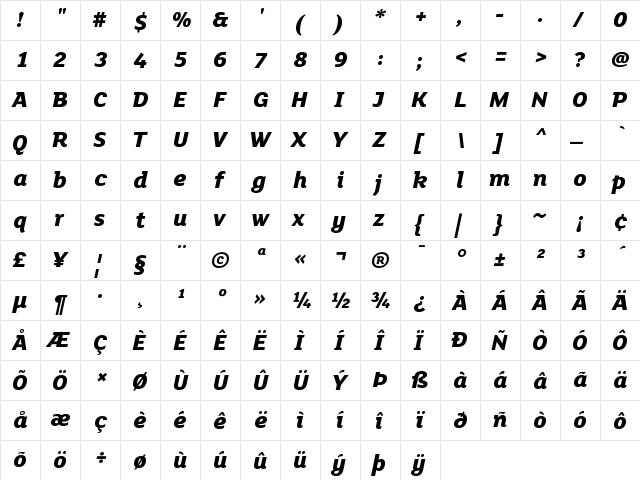
FS Lola ExtraBold Italic Regular
Design Context for FS Lola ExtraBold Italic Typeface
FS Lola ExtraBold Italic is a composed and adaptable typeface that performs quietly and consistently across a wide range of design contexts. The dynamic lean of this cut emphasises speed and emphasis in any layout. The heavy weight commands attention and anchors typographic hierarchies.
Pro Tip: Try FS Lola ExtraBold Italic for annotation and caption copy alongside an upright companion — the contrast in angle creates a dynamic but ordered typographic system.